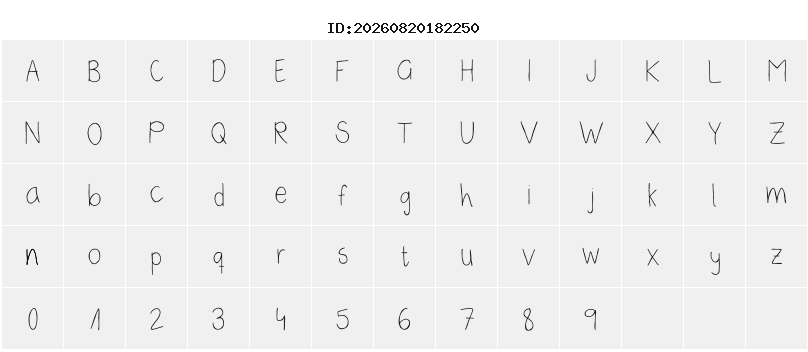
Seneca Preview
• Font Name: Seneca
• Full Font Name: Seneca
About Seneca.ttf
Seneca.ttf is a modern, elegant sans-serif font designed for ultimate readability and visual harmony. Perfect for branding, headlines, web design, and print materials.